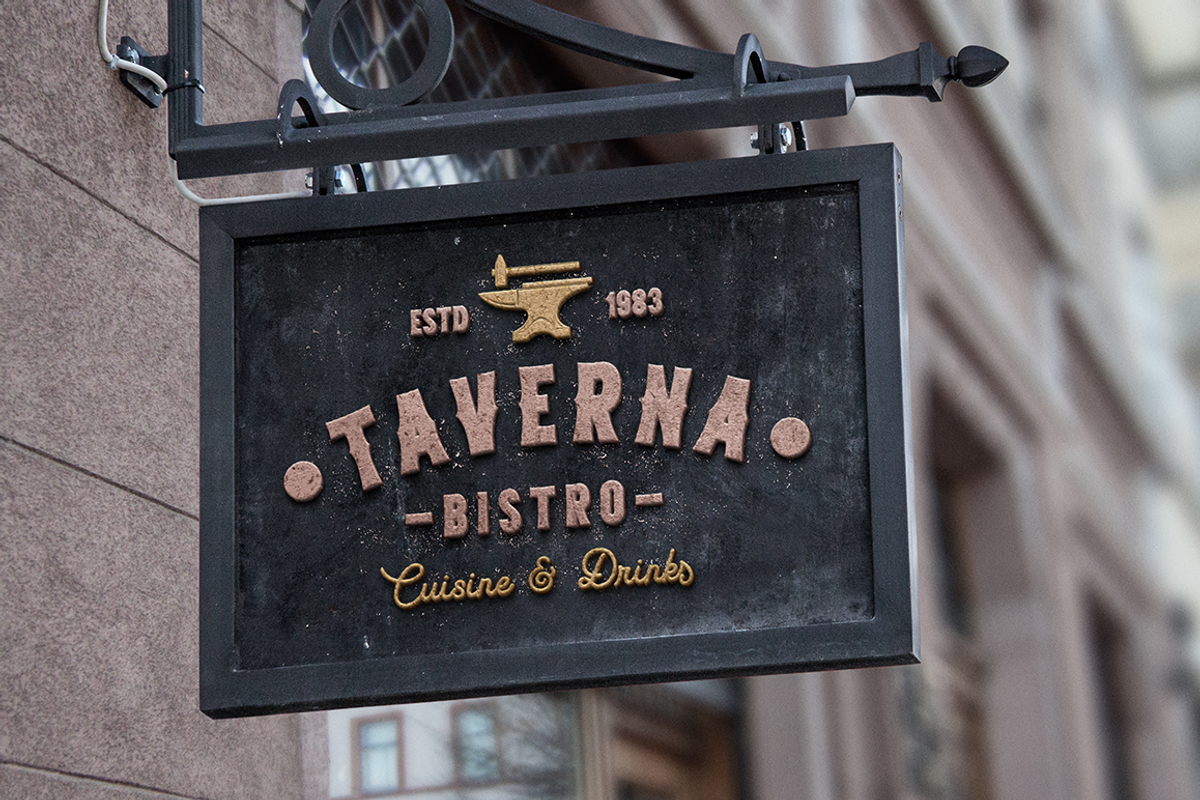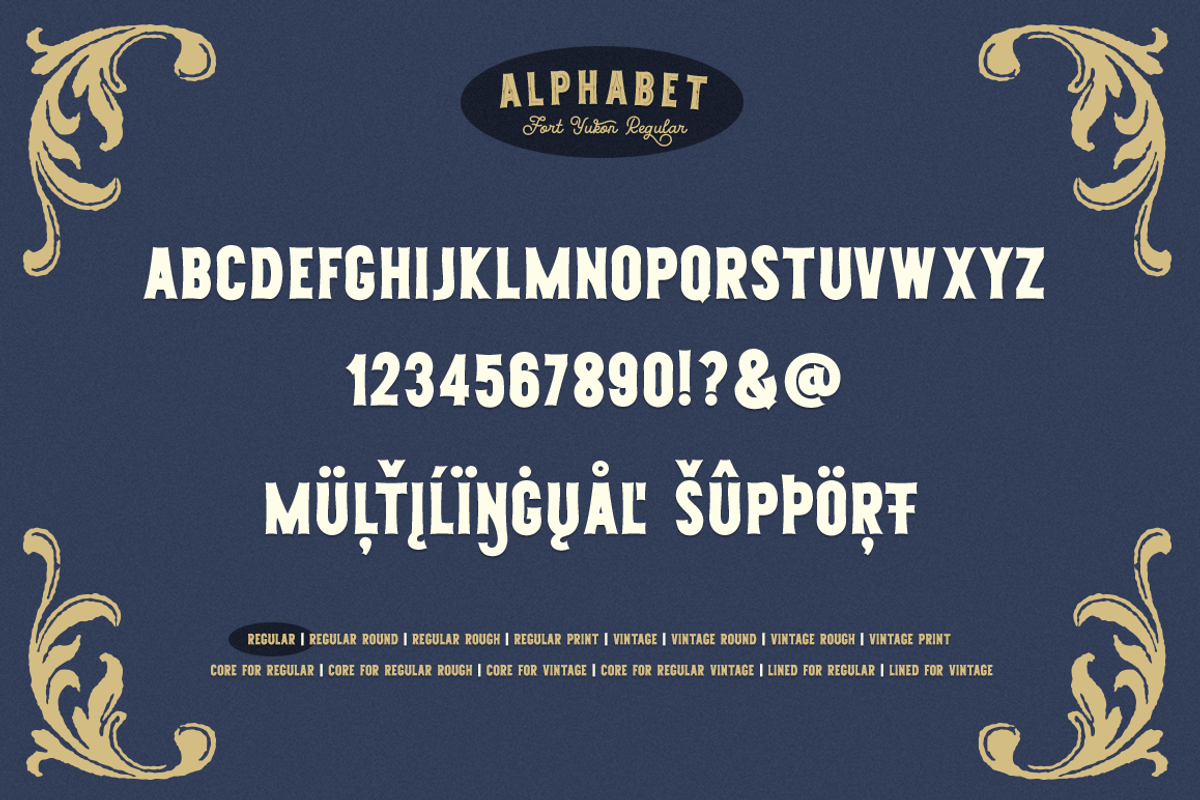
Fort Yukon
Inspired by vintage style Fort Yukon is bold and authentic vintage font family. It will inspire any design project that needs a retro feel.
These fonts are ideal for branding and will decorate any of your projects. You can also use them to create a logo or use for your businesses, t-shirts, book covers, stationery, marketing, blogs, magazines, and more.
Following international symbols support: ÀÁÂÃÄÅĄÇĆÈÉÊËĘÌÍÎÏÐÑŃŁÒÓÔÕÖØÙÚÛÜŚŠŸÝŹŻŽßàáâãäåçèéêëìíîïðñòóôõöøùúûüýÿąćęłńśšźżž